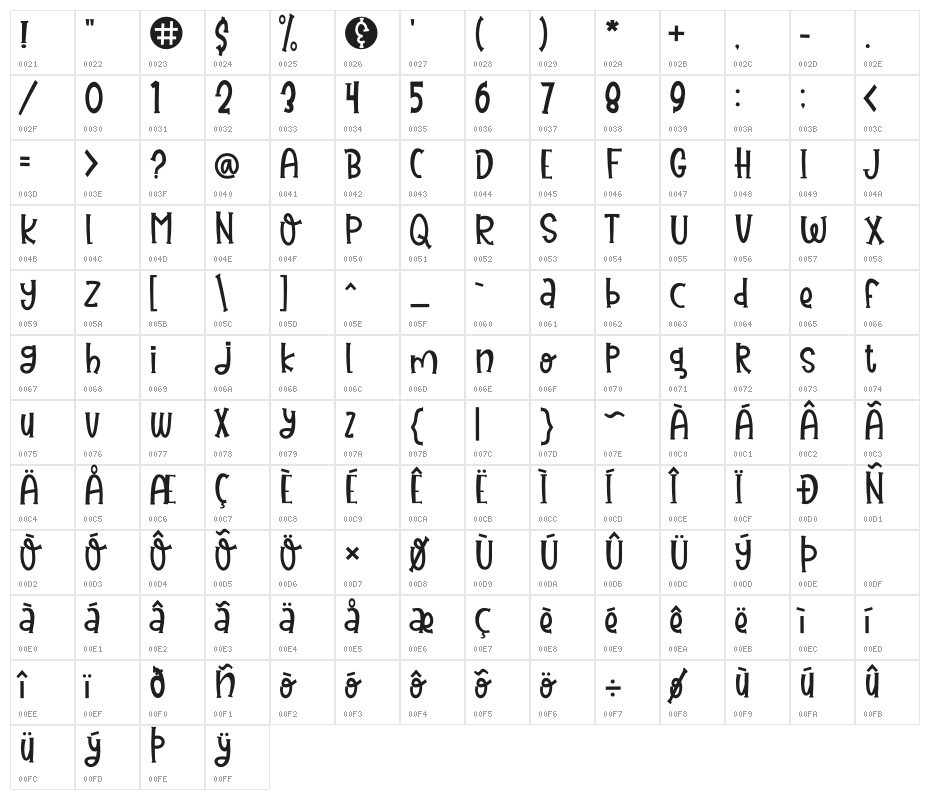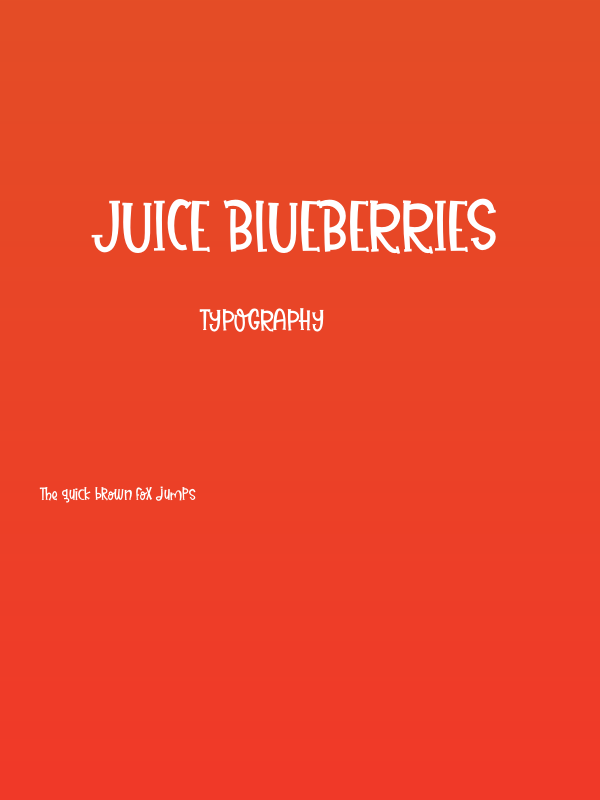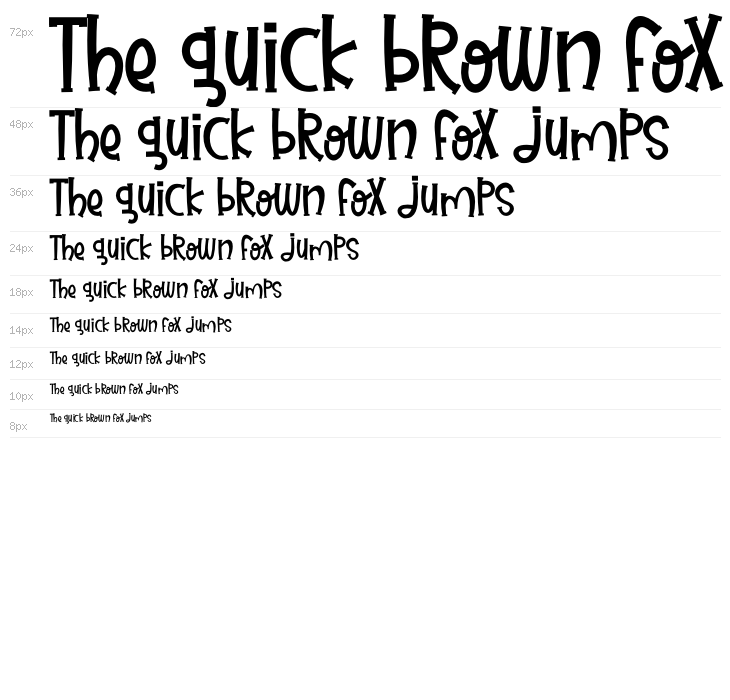
Juice Blueberries Font
Juice Blueberries Description
This playful and whimsical font features a hand-drawn style with a lively and energetic appearance. The characters are bold and slightly irregular, giving them a unique and informal look. The uppercase and lowercase letters maintain a consistent style, with rounded edges and varying stroke widths that add to the font's charm. The numbers and special characters are equally expressive, making this font suitable for creative and fun projects. Its overall design is both approachable and distinctive, making it ideal for capturing attention in a friendly manner.
| Proposed Projects | Ideal for children's books, playful branding, greeting cards, and creative posters. |